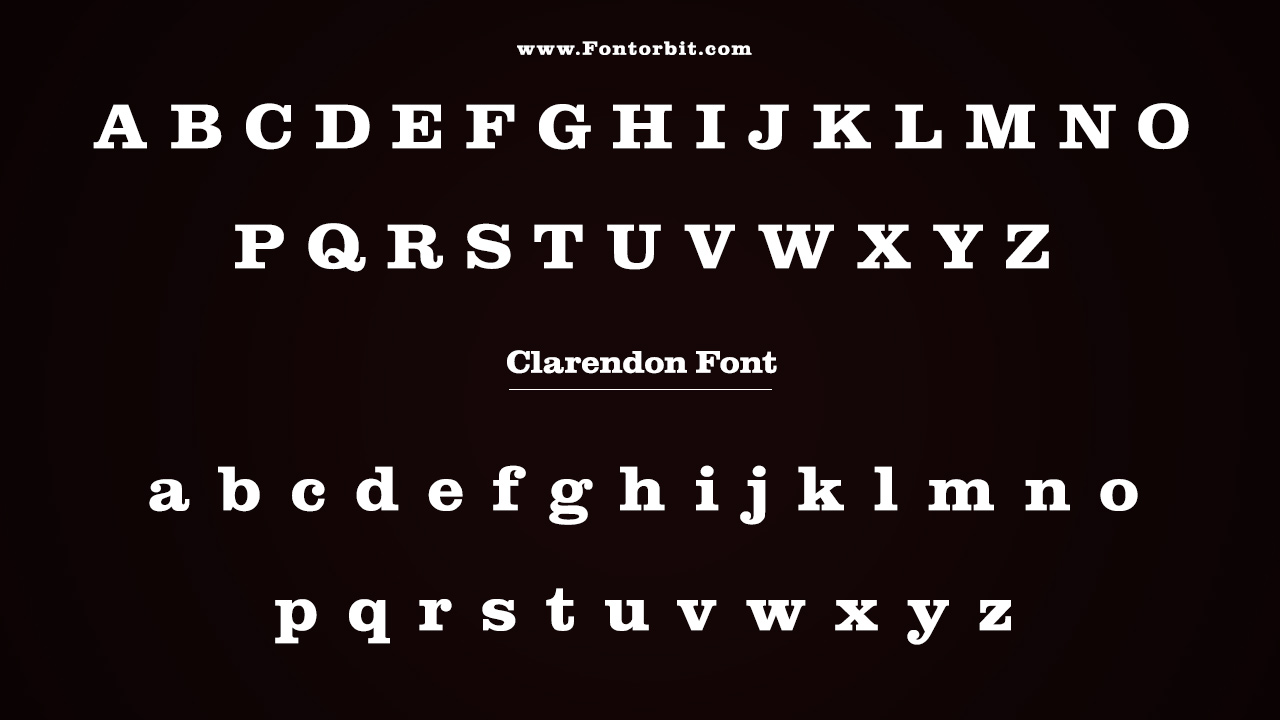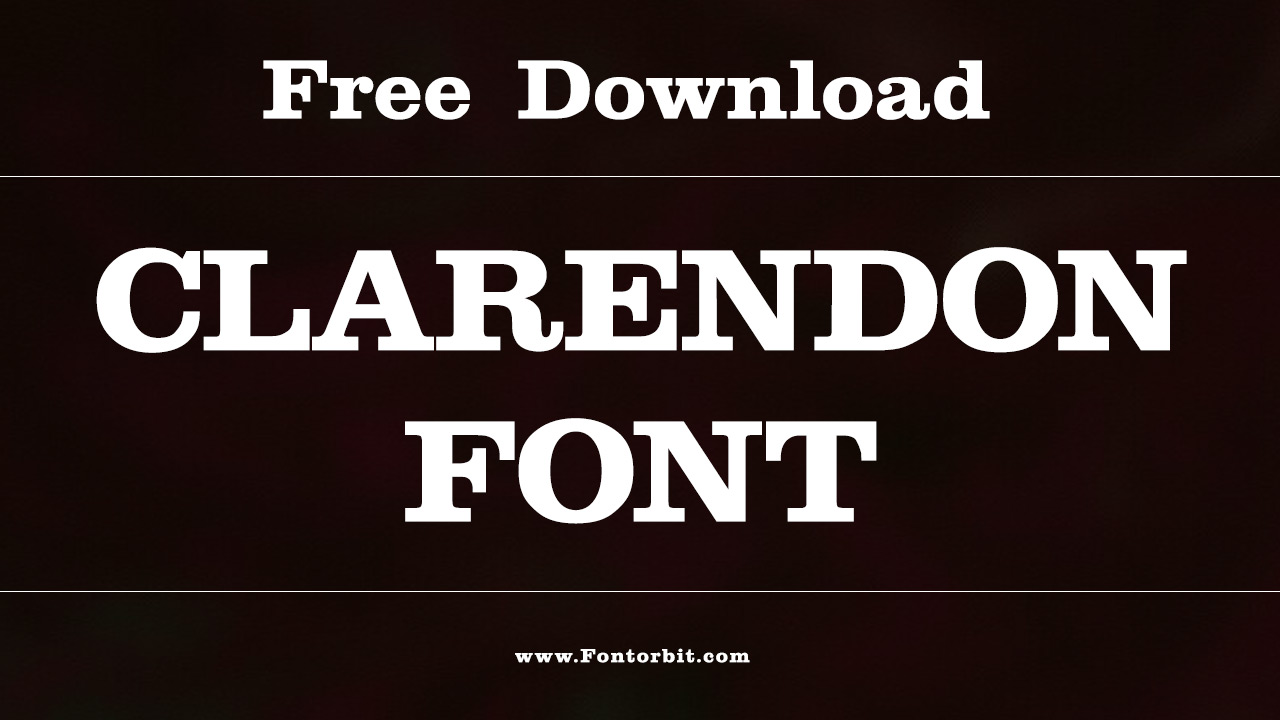
Clarendon is a slab serif typeface designed by Robert Besley in 1845 and published by Thorowgood and Co. It is a historic typeface known for its strong, bold lines and square serifs, making it a popular choice for signage, headlines, and various forms of print media.
The font has seen numerous adaptations over time, keeping its classic look intact while gaining modern variations. Clarendon is part of the broader serif family and has been frequently used in design due to its distinctive style.
Clarendon Family Includes
The Clarendon font family is versatile, offering various weights and styles that make it suitable for different design projects. This flexibility has made Clarendon a favorite in the design world, particularly in editorial and advertising contexts.
- Clarendon Regular
- Clarendon Std Light Oblique
- Clarendon Std Medium Oblique
- Clarendon Std Bold Oblique
- Clarendon Std Light Extra Narrow
- Clarendon Std Light Extra Narrow Oblique
- Clarendon Std Regular Extra Narrow
- Clarendon Std Regular Extra Narrow Oblique
- Clarendon Std Medium Extra Narrow
- Clarendon Std Medium Extra Narrow Oblique
- Clarendon Std Bold Extra Narrow
- Clarendon Std Bold Extra Narrow Oblique
- Clarendon Extra Bold Extra Narrow
- Clarendon Extra Bold Extra Narrow Oblique
- Clarendon Std Light Narrow
- Clarendon Std Light Narrow Oblique
- Clarendon Std Regular Narrow
- Clarendon Std Regular Narrow Oblique
- Clarendon Std Medium Narrow
- Clarendon Std Medium Narrow Oblique
- Clarendon Std Bold Narrow
- Clarendon Std Bold Narrow Oblique
- Clarendon Std Extra Bold Narrow
- Clarendon Std Extra Bold Narrow Oblique
- Clarendon Std Light Wide
- Clarendon Std Light Wide Oblique
- Clarendon Std Regular Wide
- Clarendon Std Regular Wide Oblique
- Clarendon Std Medium Wide
- Clarendon Std Medium Wide Oblique
- Clarendon Std Bold Wide
- Clarendon Std Bold Wide Oblique
- Clarendon Std Extra Bold Wide
- Clarendon Std Extra Bold Wide Oblique
- Clarendon Std Light Extra Wide
- Clarendon Std Light Extra Wide Oblique
- Clarendon Std Regular Extra Wide
- Clarendon Std Regular Extra Wide Oblique
- Clarendon Std Medium Extra Wide
- Clarendon Std Medium Extra Wide Oblique
- Clarendon Std Bold Extra Wide
- Clarendon Std Bold Extra Wide Oblique
- Clarendon Extra Bold Extra Wide
- Clarendon Extra Bold Extra Wide Oblique
Where Should I Use Clarendon?
Clarendon is ideal for various applications, especially where bold and distinctive typography is needed. It works well in print, digital, and branding projects. Here are some contexts where Clarendon font can be applied effectively:
- Advertising
- Editorial design
- Book covers and titles
- Magazine headlines
Clarendon remains a timeless slab serif font that bridges the gap between classical design and modern aesthetics. Its bold, striking lines make it suitable for both print and digital mediums, ensuring it remains a favourite for designers who need a reliable typeface with a rich history. Whether used for historical recreations or modern designs, Clarendon continues to make a strong impression.
1.Can I Use Clarendon For Body Text?
While it is legible, Clarendon is primarily designed for display purposes and may be too bold for long-form body text.
3.Where Can I Download Clarendon?
Clarendon can be purchased and downloaded from font platforms like Adobe Fonts and MyFonts.
4.Is Clarendon Suitable For Digital Use?
Yes, Clarendon can be used in digital formats, especially for web headers and banners.
5.What Font Pairs Well With Clarendon?
Fonts like Helvetica or Futura work well as body text alongside Clarendon’s bold headers.
6.What Is The History Behind Clarendon?
Clarendon was originally designed in 1845 and became popular for wanted posters in the 19th century.
7.Is Clarendon Easy To Read?
Clarendon is highly readable for headlines and short text, but its boldness may overwhelm large blocks of text.